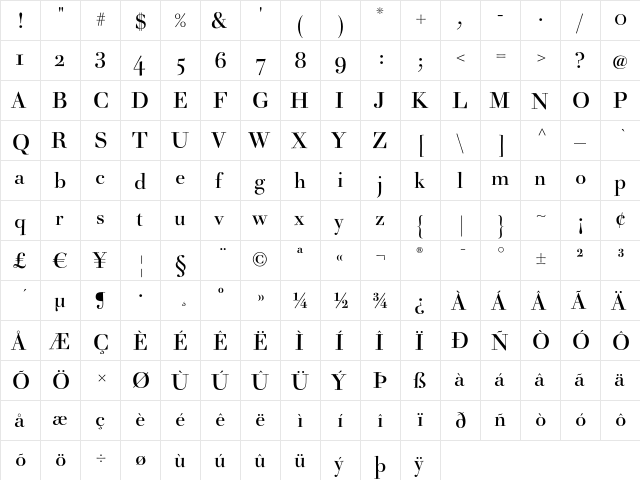
Acanthus Regular
Design Context for Acanthus Typeface
Acanthus offers clean, dependable letterforms without strong stylistic allegiance, making it a practical choice for designers who need flexibility.
Pro Tip: Pair Acanthus with a font of contrasting weight or personality to build a more expressive typographic hierarchy.